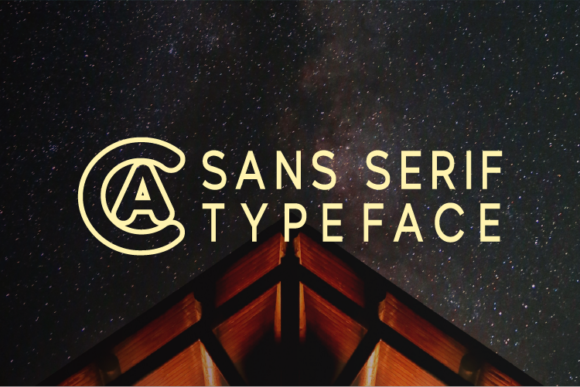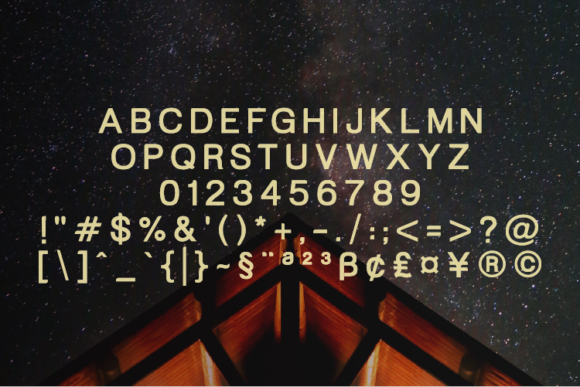
Introducing Foemale Font: Elevate Your Design with Elegance and Versatility
In the realm of typography, a font can make or break the visual appeal of a design project. For designers and crafters seeking a typeface that exudes elegance, sophistication, and versatility, Foemale Font stands out as an exceptional choice. This distinct and elegant sans serif font seamlessly blends traditional influences with a contemporary aesthetic, making it perfect for a wide range of design applications.
The Unique Characteristics of Foemale Font
Foemale Font boasts well-balanced Latin details that contain distinctive contrasts, setting it apart from more generic sans serif fonts. Its design combines the clean lines and simplicity of sans serif typography with subtle nuances that add character and depth. This blend of traditional and modern elements results in a font that is not only visually appealing but also highly versatile.
Achieve an Exquisite yet Subtle Look
One of the key advantages of using Foemale Font is its ability to add an exquisite touch to any design without overpowering it. Its elegant and subtle appearance makes it suitable for projects where a refined and sophisticated look is desired. Whether you’re working on a luxury brand’s logo, a high-end product catalog, or an elegant wedding invitation, Foemale Font can help you achieve the perfect balance of style and subtlety.
Maximum Versatility for Various Design Applications
Foemale Font’s versatility is one of its most compelling features. Its clean and elegant design makes it suitable for a wide range of applications, from digital media to print materials. Here are some of the ways you can use Foemale Font to elevate your design projects:
• Branding and Logos: Create a lasting impression with a custom logo that exudes elegance and sophistication.
• Print Materials: Enhance your brochures, flyers, and business cards with a refined and professional look.
• Digital Media: Use Foemale Font in your website designs, social media graphics, and email newsletters to add a touch of class.
• Packaging: Stand out on store shelves with product packaging that features elegant and eye-catching typography.
• Events and Weddings: Add a touch of luxury to your event invitations, menus, and programs.
Why Choose Foemale Font?
With so many fonts available, why should you choose Foemale for your next design project? Here are a few compelling reasons:
• Unique Aesthetic: Foemale offers a distinctive look that will set your designs apart from the competition.
• Elegance and Versatility: Its elegant design and versatile nature make it suitable for a wide range of applications.
• Easy to Read: Despite its elegant appearance, Foemale Font remains highly legible, making it perfect for both headings and body text.
• High-Quality Design: Crafted with attention to detail, Foemale Font is a high-quality typeface that reflects professionalism.
Foemale Font is a remarkable typeface that brings a blend of elegance, sophistication, and versatility to the world of design. Its unique aesthetic, characterized by well-balanced Latin details and distinctive contrasts, makes it an excellent choice for designers and crafters looking to elevate their projects. Whether you’re aiming for an exquisite yet subtle look or maximum versatility across various design applications, Foemale Font is sure to meet your needs. Incorporate Foemale into your design toolkit and discover the difference it can make in your work.
With Foemale Font, you can unlock new creative possibilities and take your designs to the next level. Explore the potential of this elegant sans serif font and experience firsthand how it can enhance your visual projects.